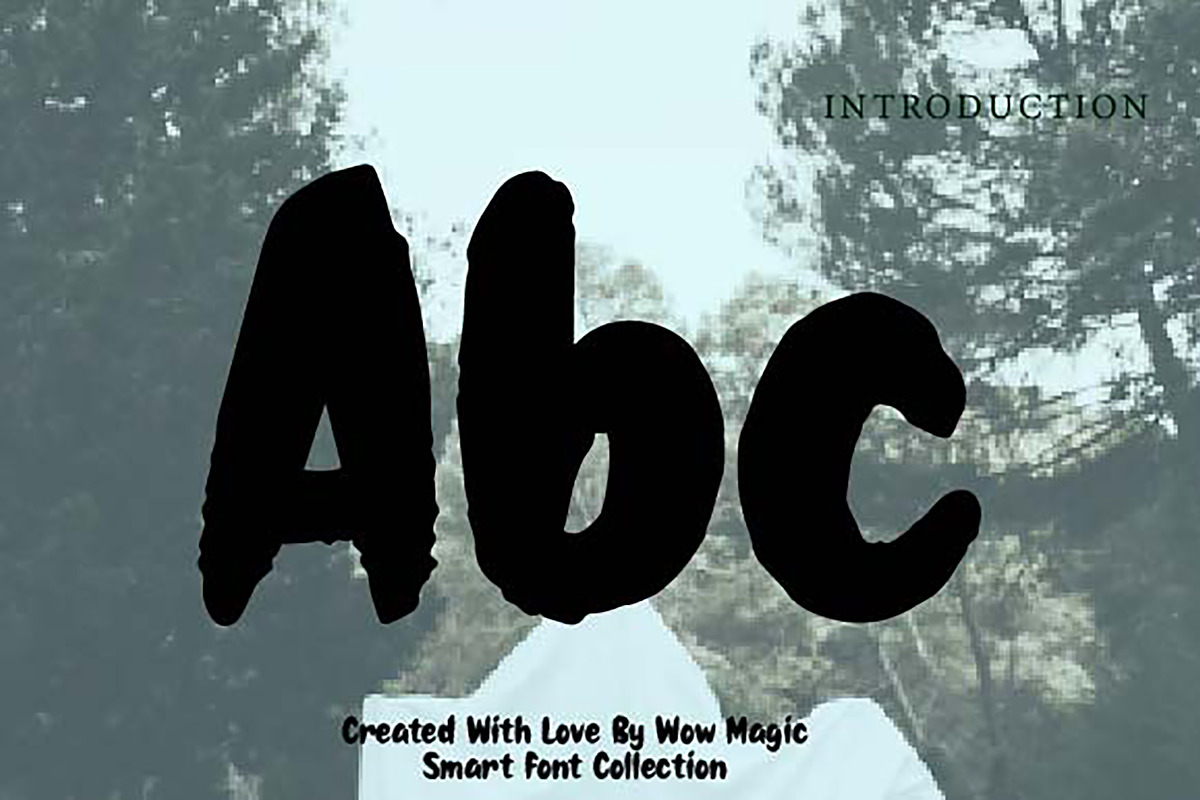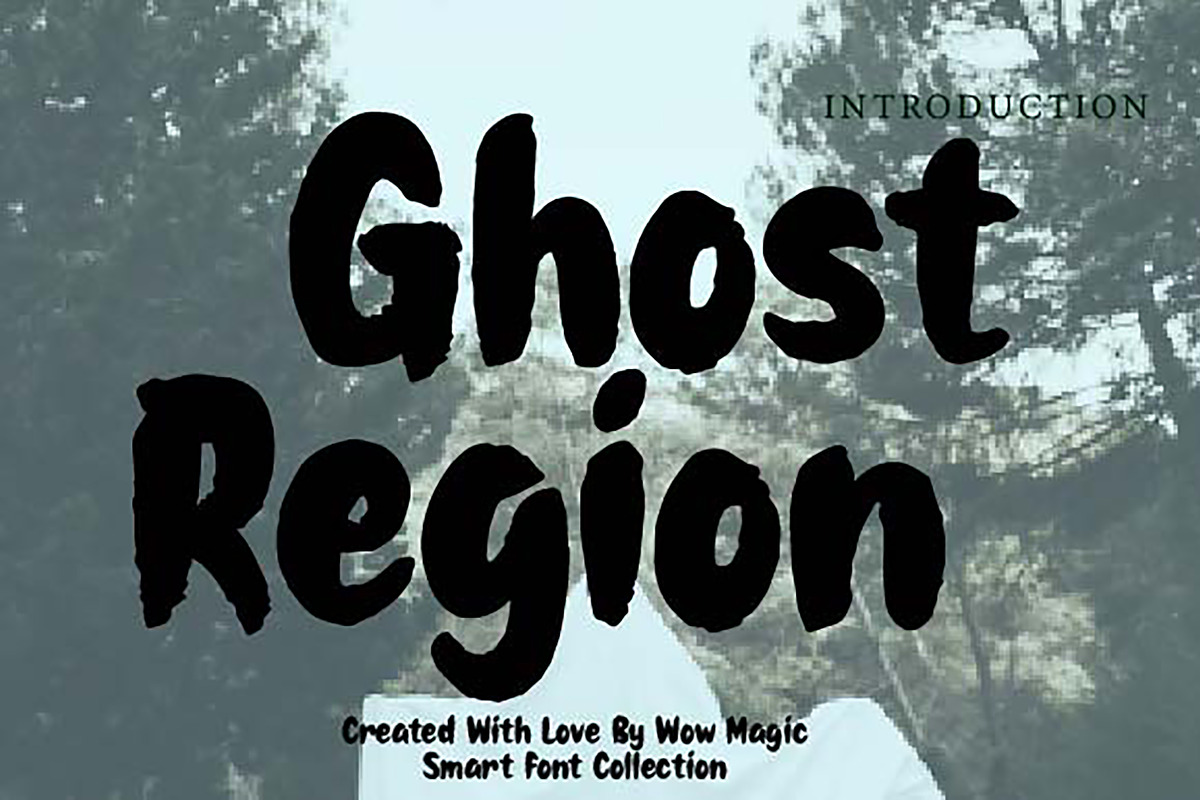
Ghost Region
Ghost Region – Horror Brush Display Font
Ghost Region is a bold horror brush display font with a dark, raw, and haunting personality. Inspired by eerie hand-painted lettering, horror movie titles, and spooky visual aesthetics, this typeface delivers a dramatic and unsettling presence that instantly captures attention.
With its rough brush texture, uneven strokes, and expressive handcrafted style, Ghost Region is perfect for Halloween designs, horror posters, thriller book covers, spooky branding, haunted event promotions, social media graphics, and cinematic title work. Its strong character makes every word feel intense, mysterious, and full of suspense.
This font is ideal for designers who want a typeface that feels creepy, bold, and visually striking. Whether you're creating frightening promotional artwork, dark-themed packaging, or ghostly headline typography, Ghost Region adds a chilling and unforgettable touch to every design.
Halloween Posters Horror Movie Titles Thriller Book Covers Haunted Event Promotions Spooky Branding Dark Packaging Social Media Graphics Creepy Headlines Horror-Themed Merchandise
Bold horror brush style Rough and expressive handmade texture Creepy, dramatic, and eye-catching look Perfect for spooky and dark creative projects Great for both print and digital use
Ghost Region is a bold horror brush display font with a rough, spooky, and expressive style. Perfect for Halloween posters, horror titles, book covers, branding, event promotions, and dark-themed graphics, it brings a chilling and unforgettable presence to any design.